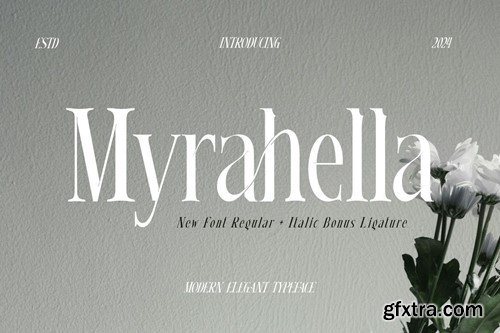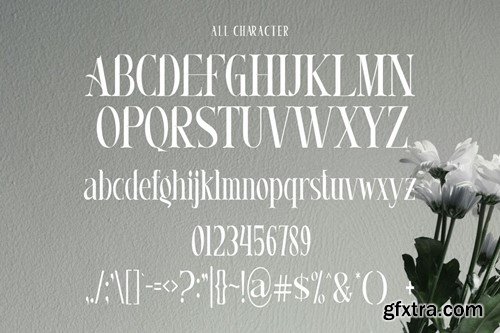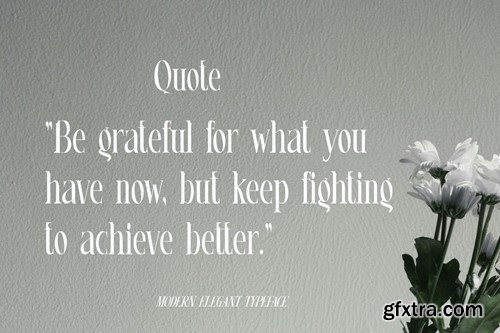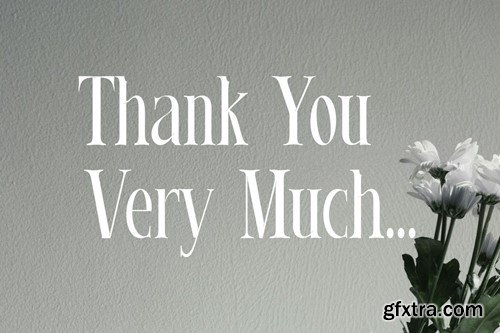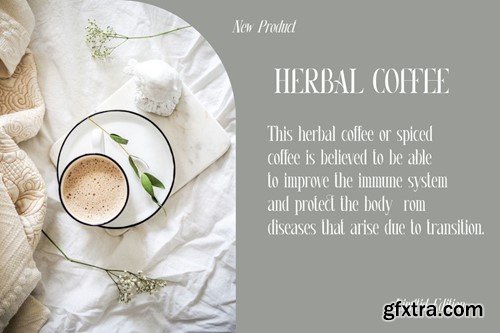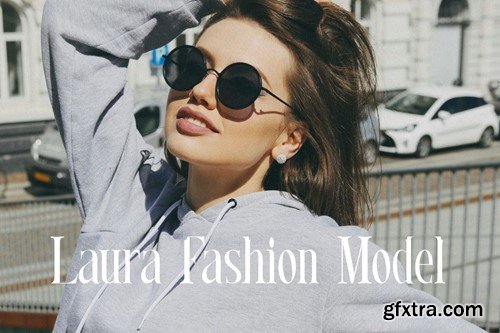
Myrahella - 现代优雅衬线字体 TYWRH33
Myrahella - Modern Elegant Typeface
Proudly presenting our new product Myrahella - Modern Elegant Typeface is a modern and authentic font. Perfect for professional and product branding needs, this font is suitable for any branding project such as quotes, logos, blog headers, posters, ribbons, letters, invitations, stationery, etc... Designed to be versatile and flexible that can be used on a variety of projects and media. extraordinary in a variety of contexts. Available WE INCLUDE THE FONT FORMAT IN THE DOWNLOAD FILE Of course Otf Ttf Woff Uppercase If you have any questions, queries or concerns please do not hesitate to contact us directly. Appearance and cover image Not included in the download file, for presentation purposes only